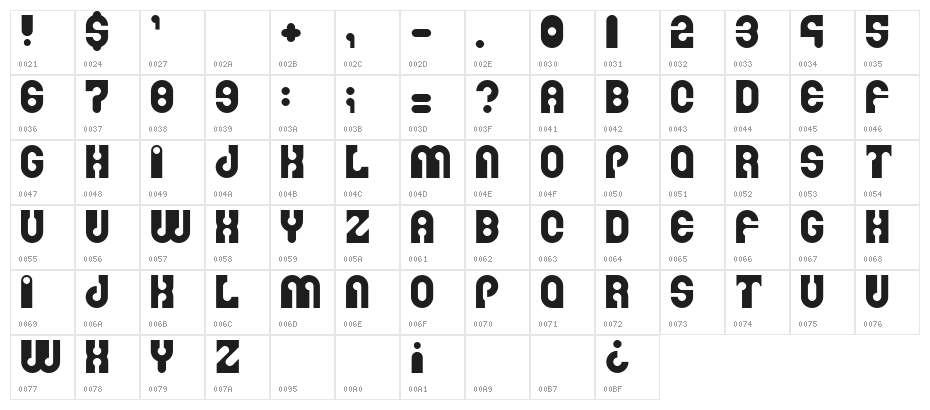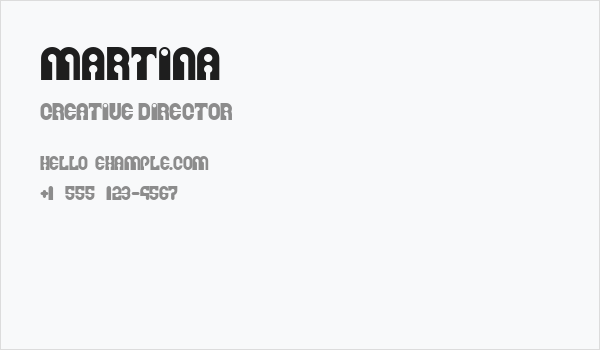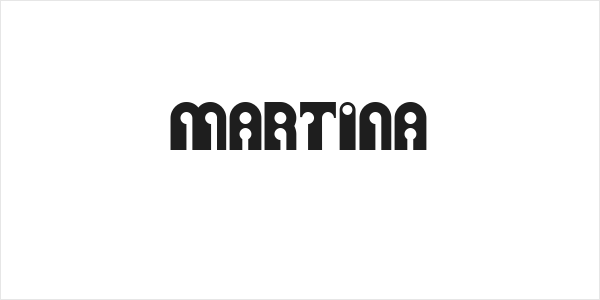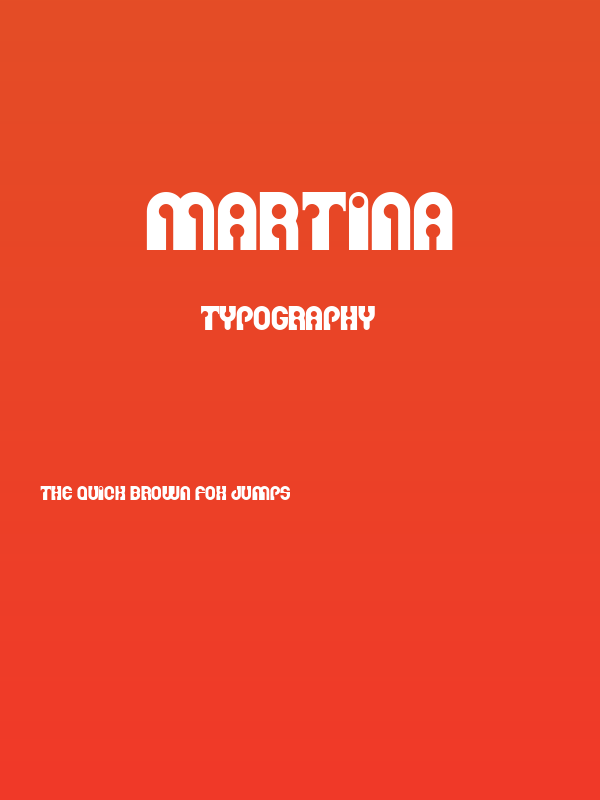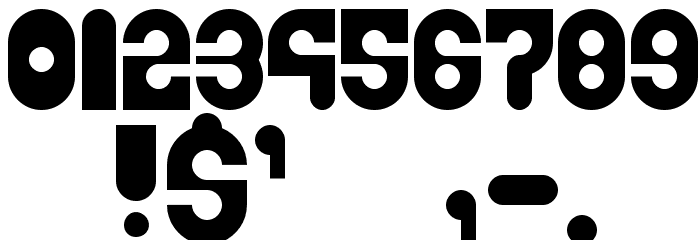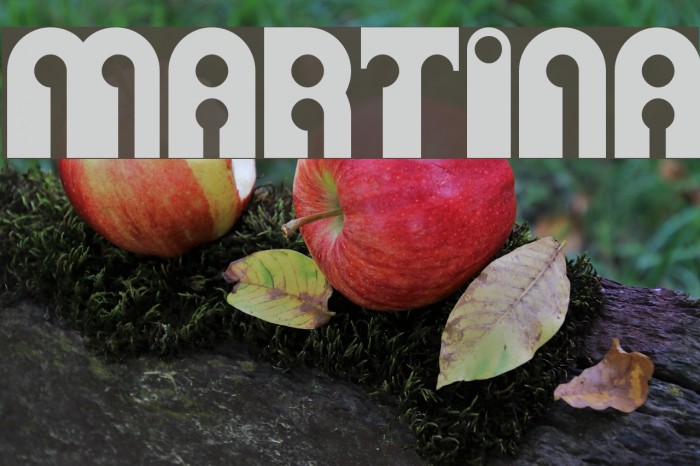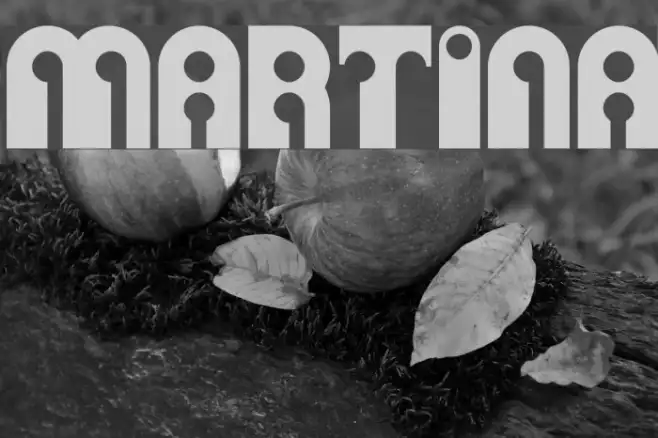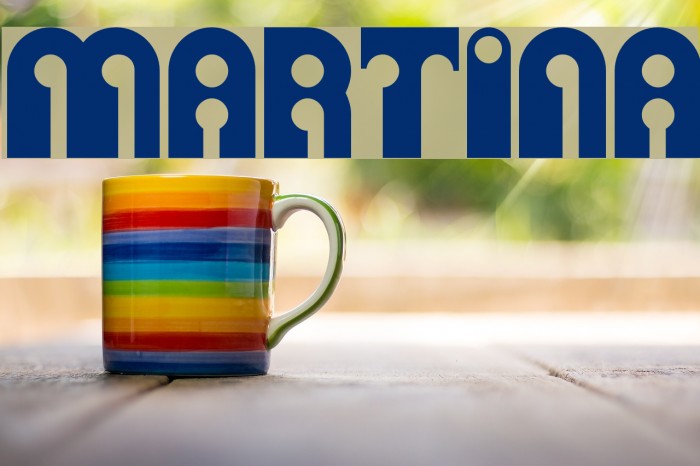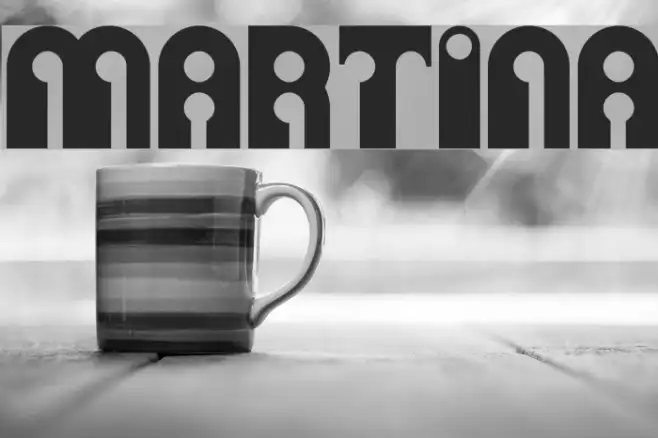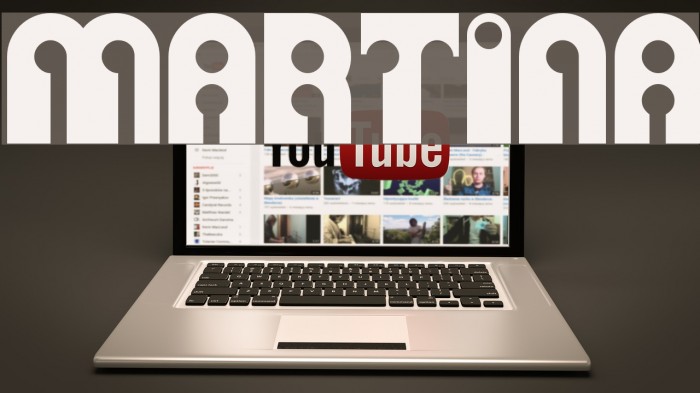
This font features a bold and striking design with thick, block-like characters that have a strong presence. The letters are uniformly wide with rounded edges, giving them a modern and playful appearance. The unique cutouts within certain letters, such as 'B', 'P', and 'R', add a distinctive flair, making the font stand out. The numbers and special characters maintain the same boldness and style, ensuring consistency across all elements. This font is ideal for projects that require a strong visual impact and a contemporary feel.
| Proposed Projects | Ideal for branding, posters, headlines, and any design needing a bold statement. |